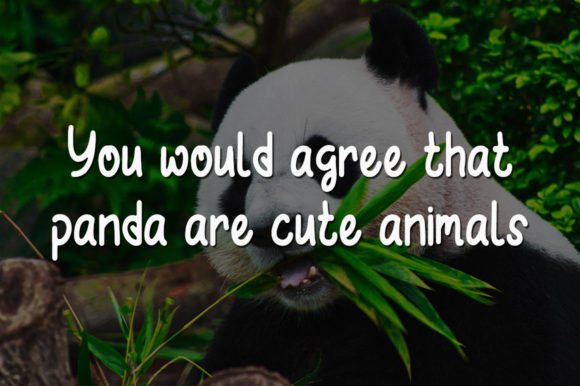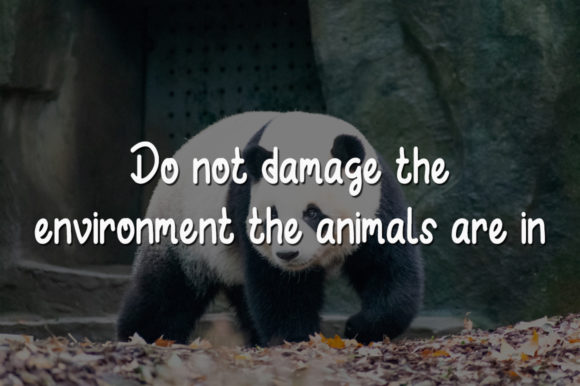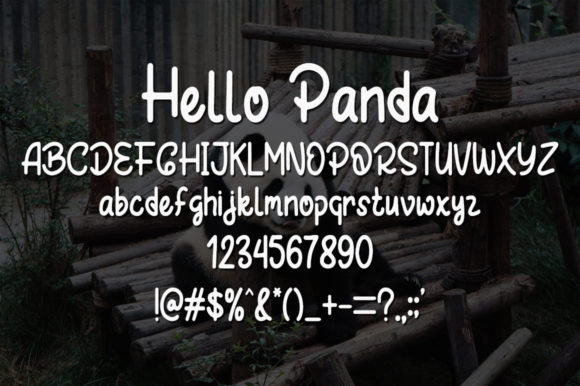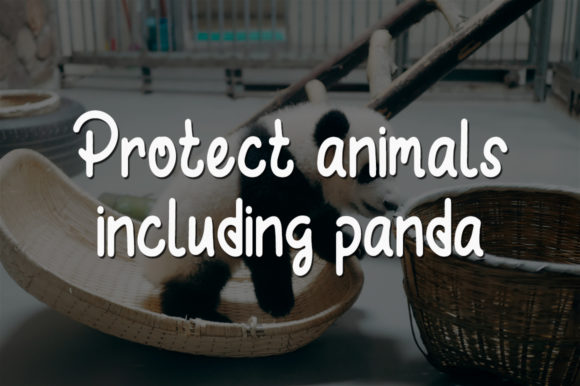
HomeScript FontsHello Panda Font Script Fonts Hello Panda Font FacebookXPinterestWhatsApp 1 of 5 Hello Panda Font Poster 2... Hello Panda Font Poster 3... Hello Panda Font Poster 4... Hello Panda Font Poster 5... About Hello Panda Font Hello Panda`is a casual handwritten font. Use it for any design projects that require a charming appearance! DOWNLOAD NOW People also explored Belinda Font Drawlers Font Mostiya Font Aellena Font Hilltams Font History Font Boba Font Dagruel Font Volto Font 338 0 TagsHello Panda Font Previous articleOriginal Chocolate FontNext articleSour Candy Font LEAVE A REPLY Cancel reply Comment: Please enter your comment! Name:* Please enter your name here Email:* You have entered an incorrect email address! Please enter your email address here Website: Save my name, email, and website in this browser for the next time I comment. Personal Use Free Luxima Personal Use Free Read more about this font Concre Personal Use Free Read more about this font Adventure Font Personal Use Free Read more about this font Just Smile Personal Use Free Read more about this font BLOG Elegant Wedding Invitation Fonts – Handwritten & Script Fonts Elegant Wedding Invitation Fonts Your wedding day is one of the most important moments of your life, and every detail matters—including your invitation design. Our... To increase your work productivity, choose the most readable fonts. Free Fonts Risk: Why Free Fonts Can Be Dangerous for Designers 5 Fonts That Will Dominate Design Trends in 2026